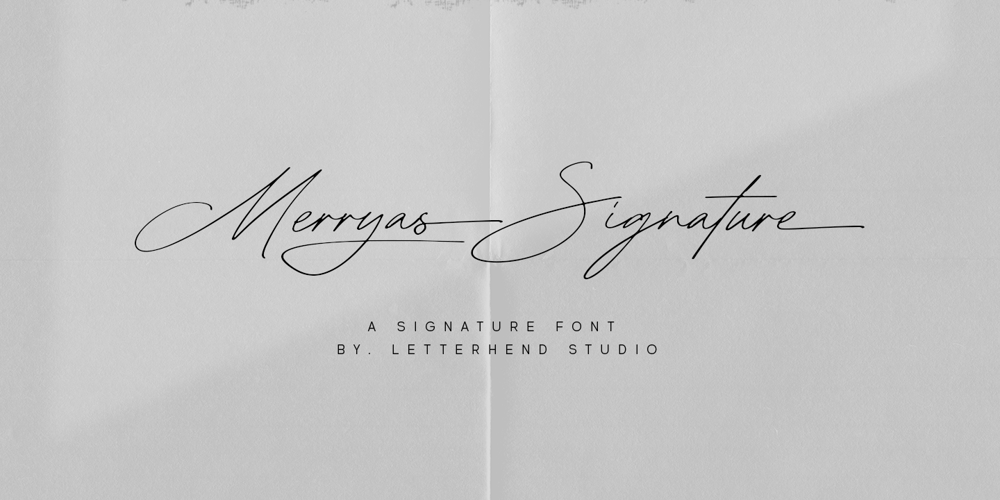
Merryas Signature Font Family was designed by Hendry Juanda and published by Letterhend. Merryas Signature contains 1 styles and family package options. Merryas Signature is a beautiful signature script based on manual hand writing. The stylistic alternate, ligatures and the tick and thin stroke make this font looks a real hand writing instead of typing a font. This type of font perfectly made to be applied especially in logo, and the other various formal forms such as invitations, labels, logos, magazines, books, greeting / wedding cards, packaging, fashion, make up, stationery, novels, labels or any type of advertising purpose.Features : Uppercase & lowercase Numbers and punctuation Alternates & Ligatures Multilingual PUA encoded